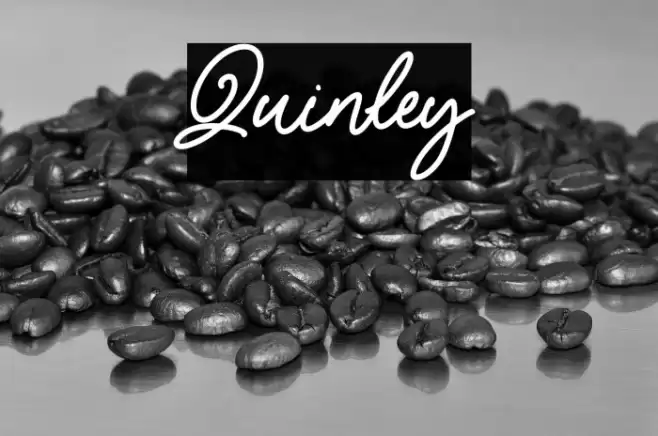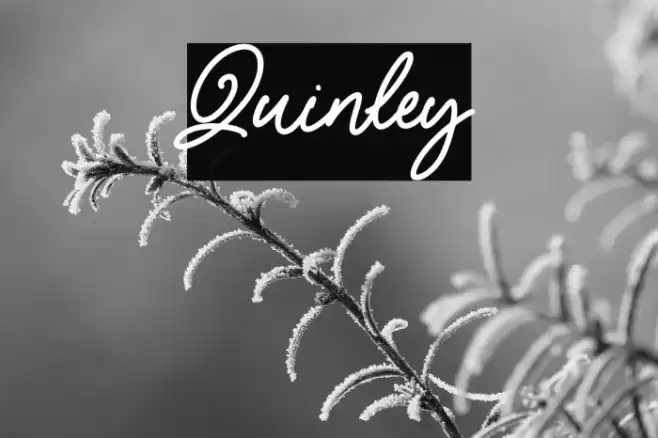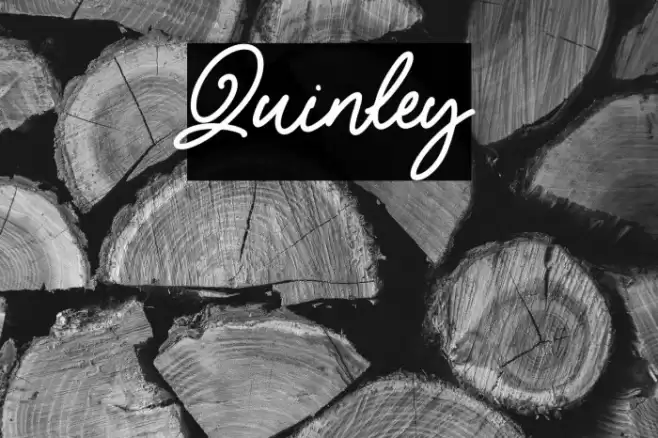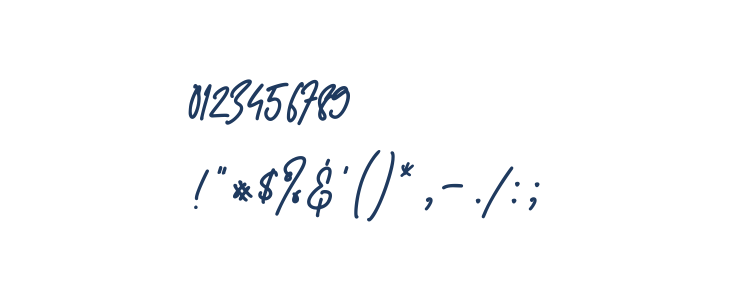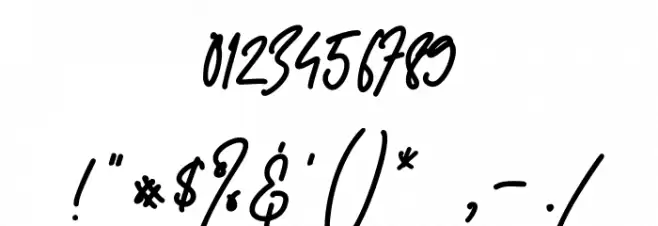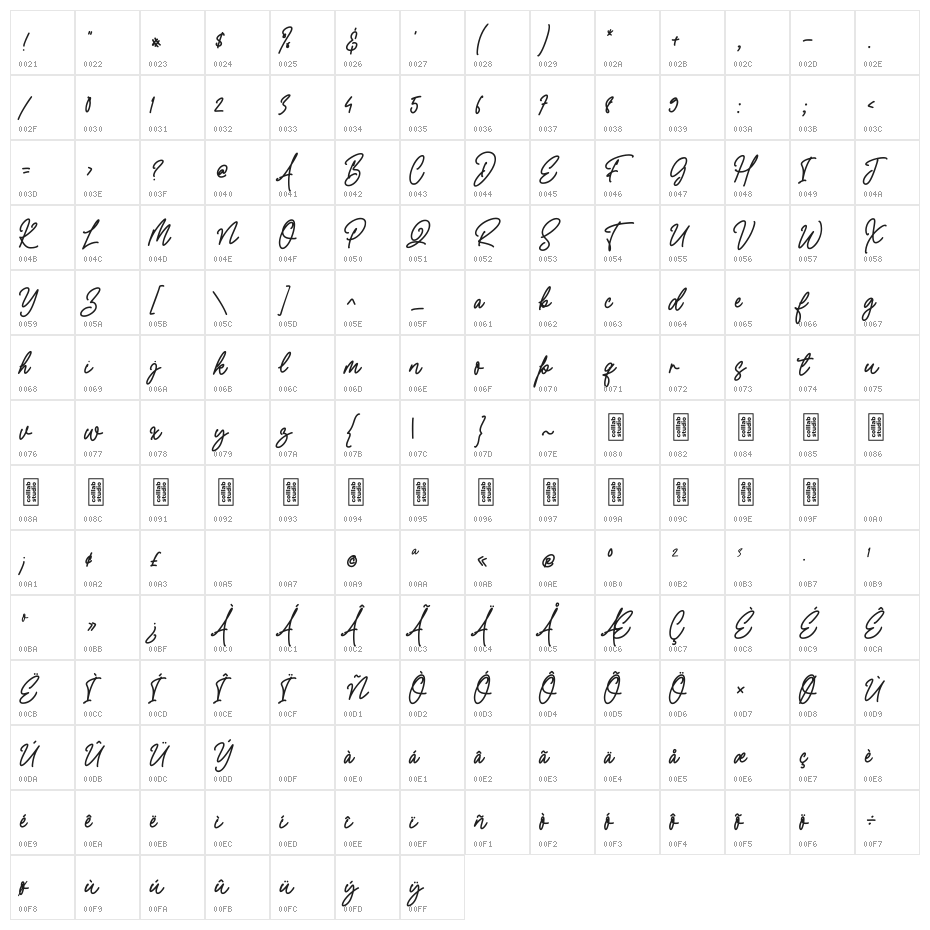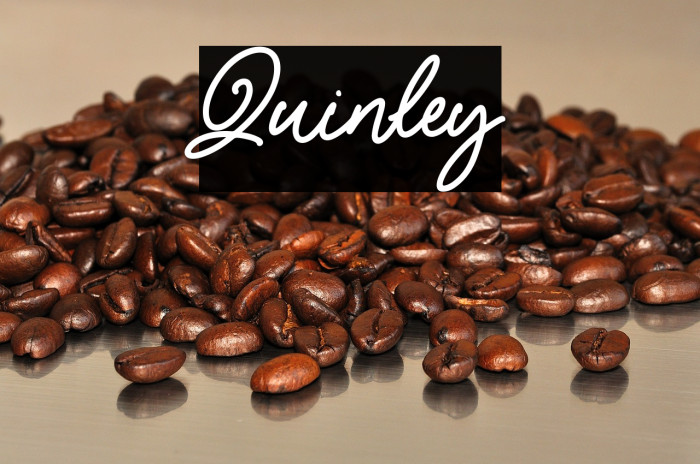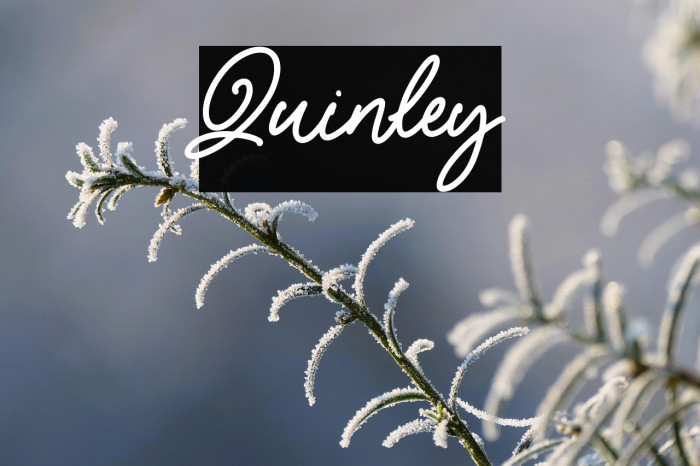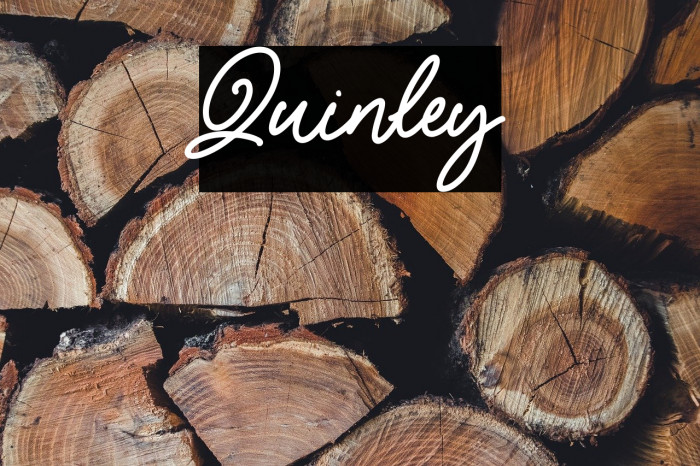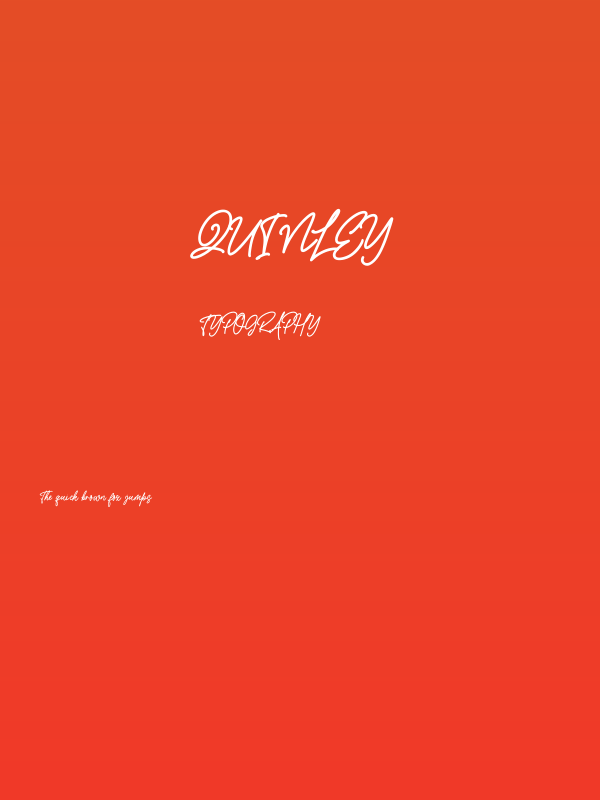
Quinley Font
Quinley Description
This font exudes a lively and dynamic character with its flowing, cursive style. The letters are interconnected, creating a sense of continuity and movement. The uppercase letters are bold and prominent, while the lowercase letters maintain a consistent flow, enhancing readability. The numerals are distinct yet harmonize well with the overall script style. Special characters are elegantly integrated, maintaining the font's cohesive aesthetic. The strokes vary in thickness, providing a medium contrast that adds depth and interest. This font is ideal for projects that require a personal touch, such as invitations, greeting cards, or branding materials that aim to convey elegance and sophistication.
A lively, cursive font with interconnected letters and medium contrast, perfect for elegant projects from Regular fonts.
- Proposed Projects: Ideal for invitations, greeting cards, branding materials, and any project requiring a personal, elegant touch.
- Overall Style: Elegant
- Use Case: Logos, Invitations, Greeting Cards